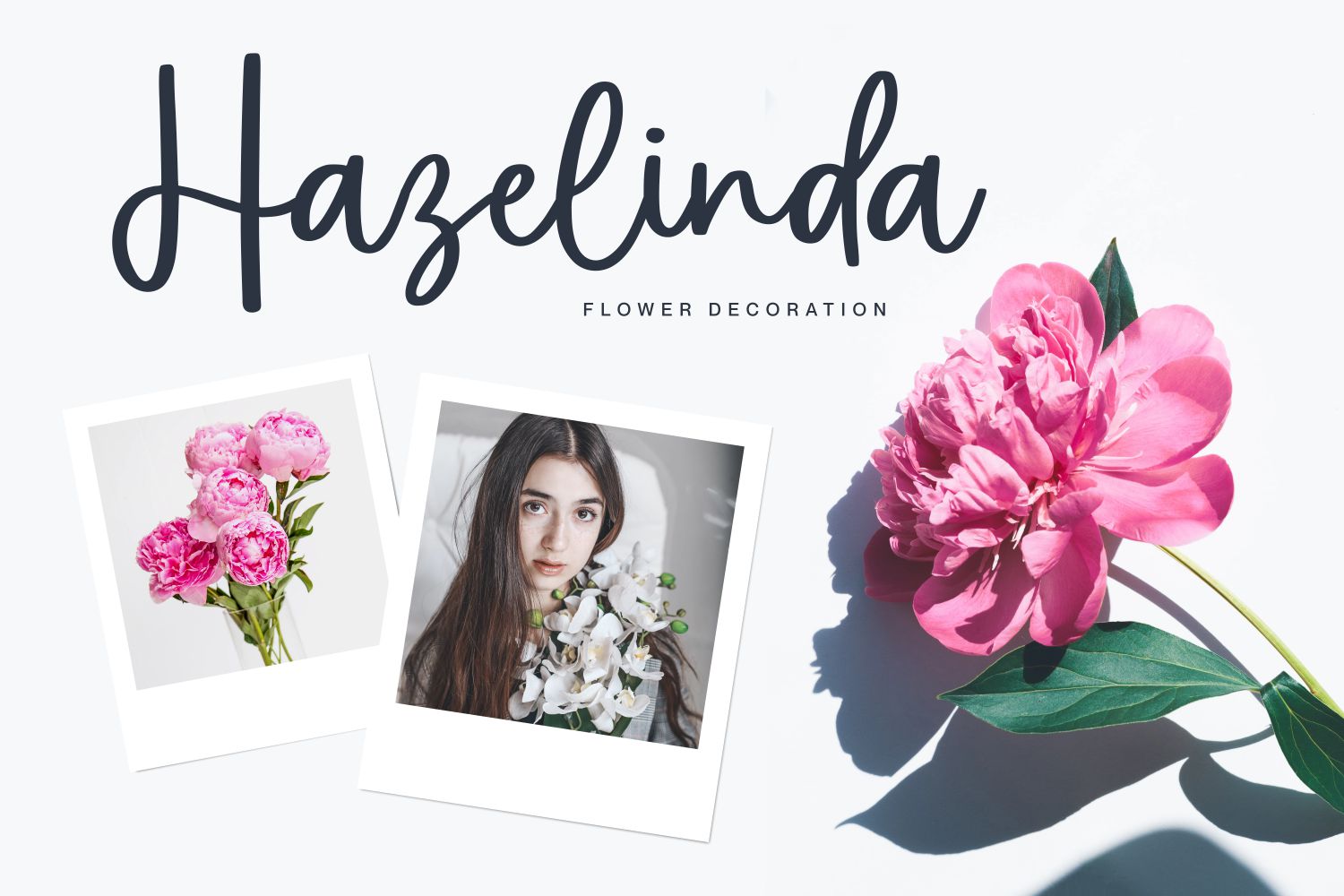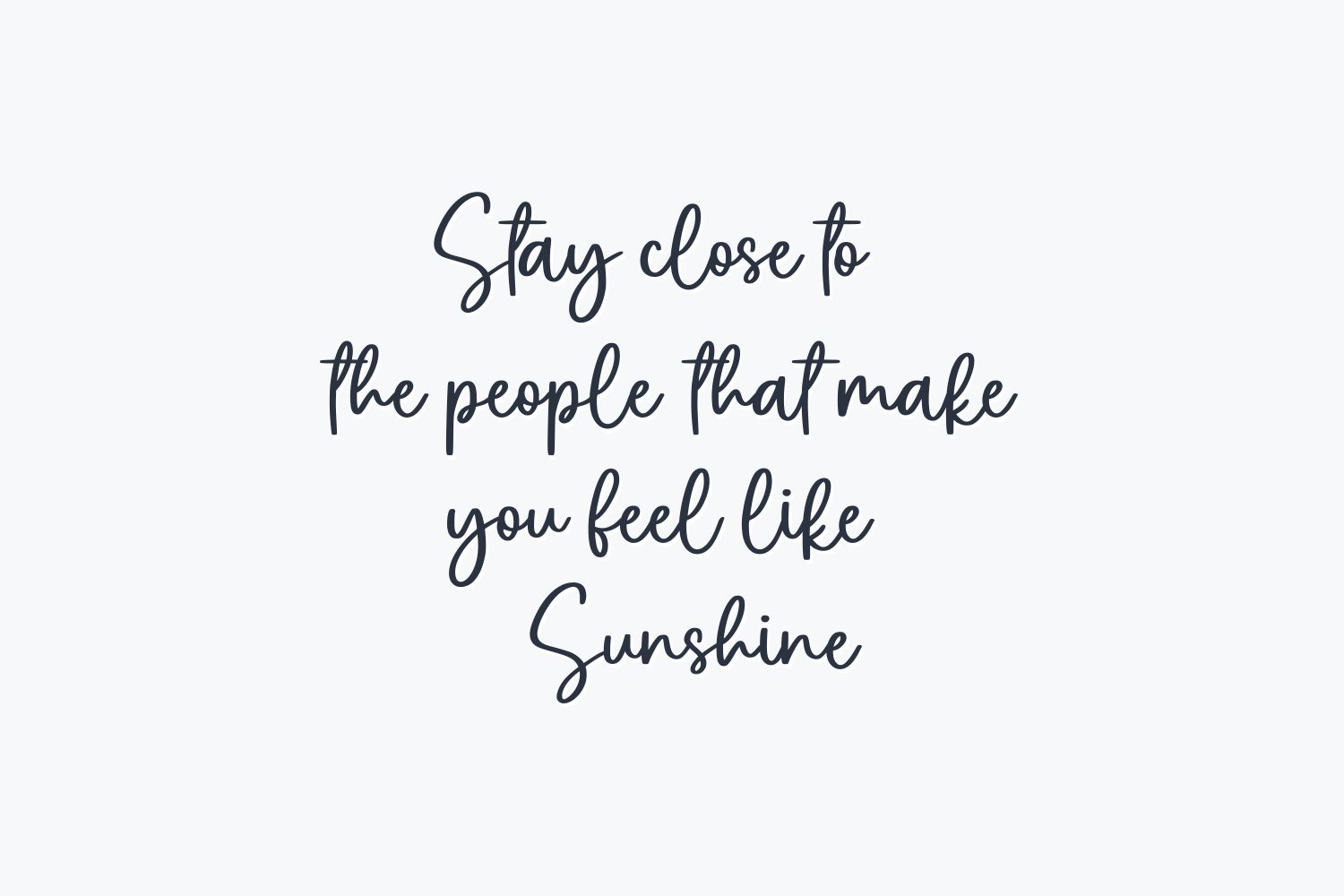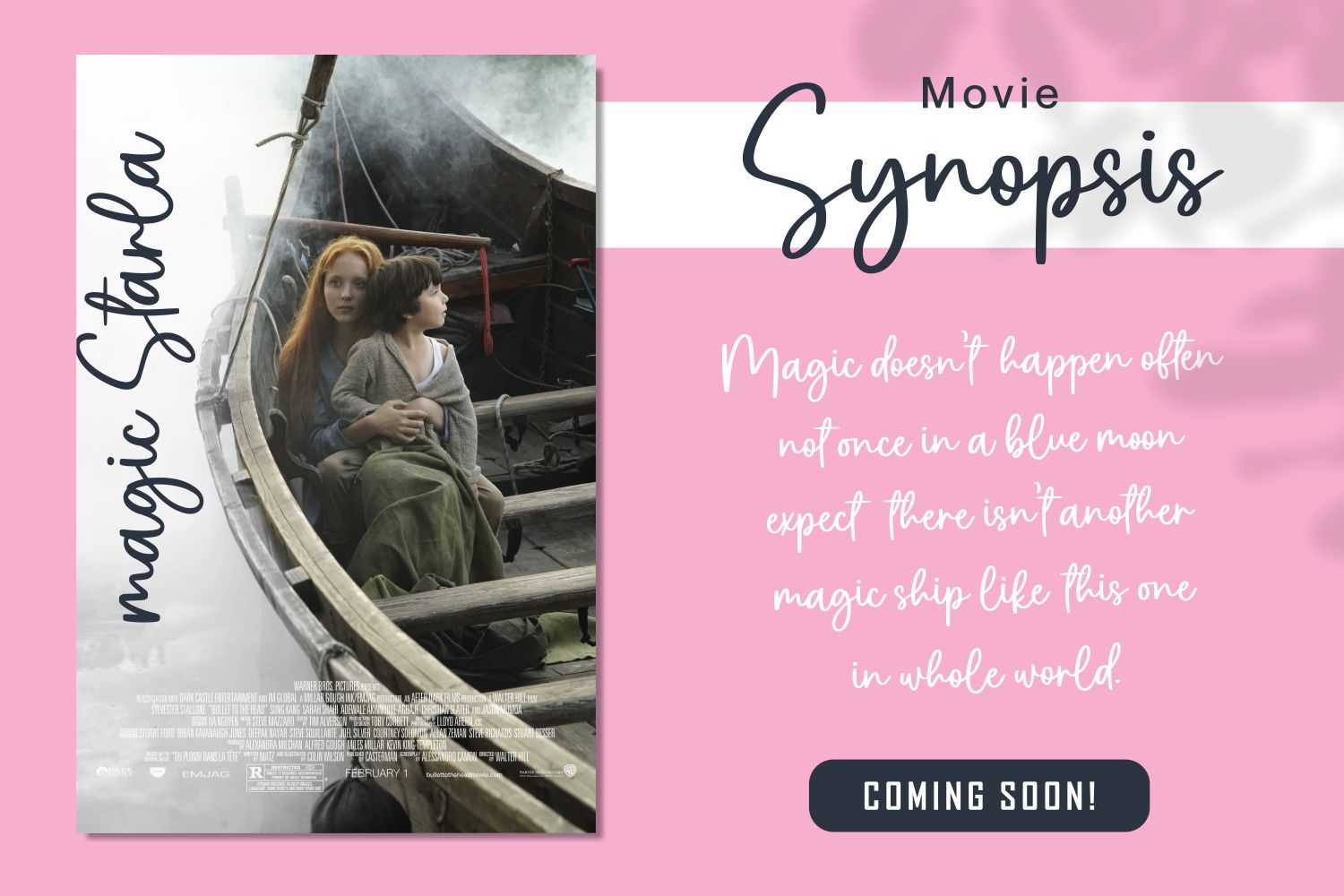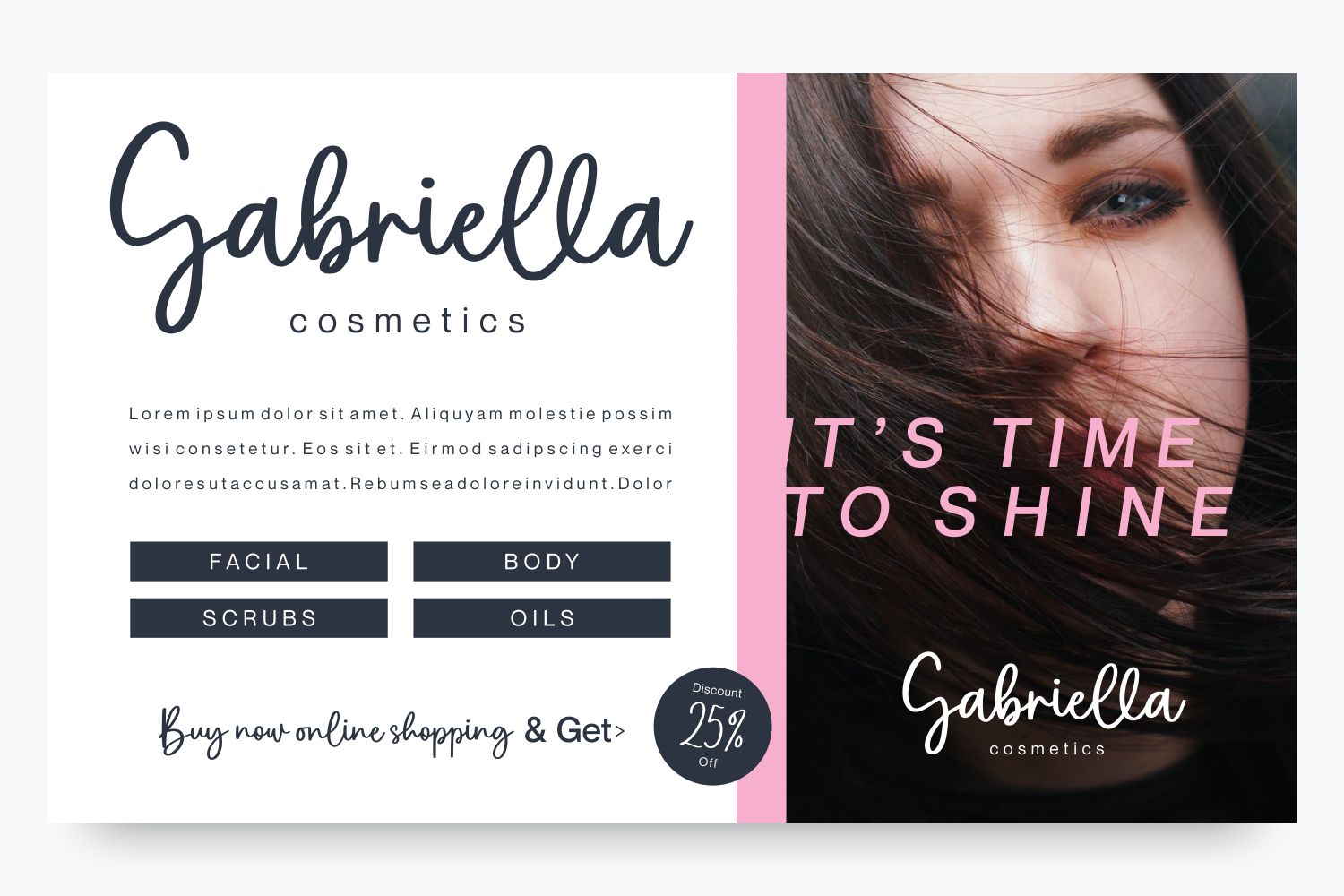
Oyscake Script Font
This is a delicate, elegant and flowing hand-drawn Typeface. It has beautiful and well balanced characters and as a result, it matches a wide pool of designs.